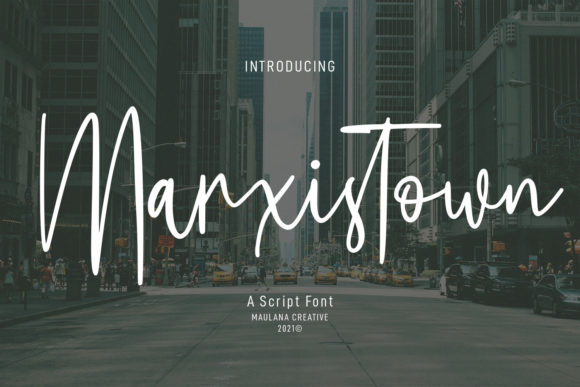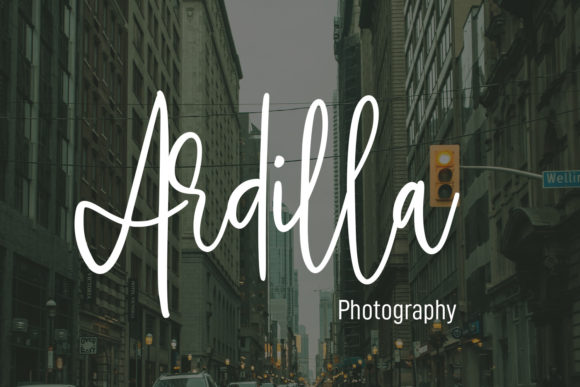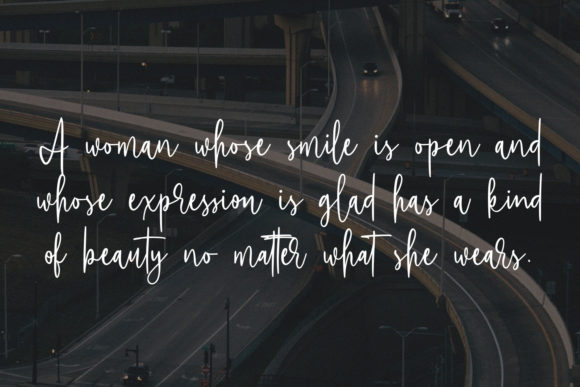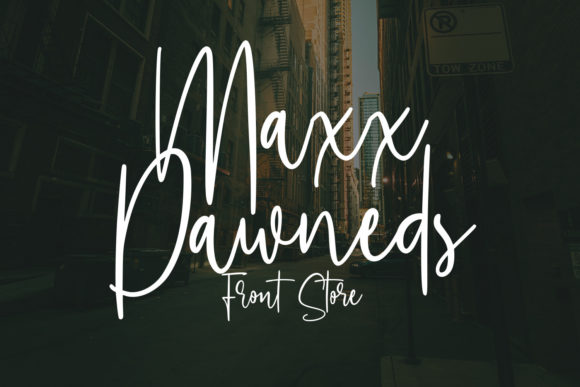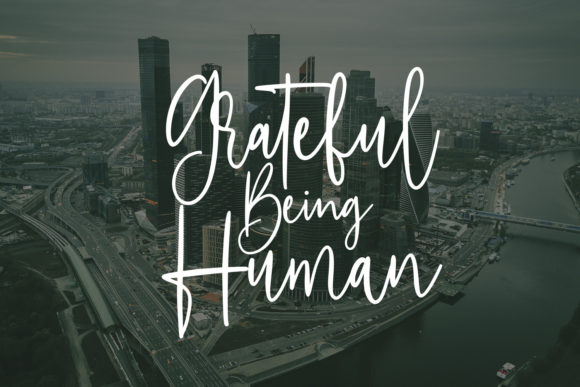
About Marxistown Script Font
Marxistown Script is a chic, flowing script font that emanates sophistication and elegance. Its stylish alternates and ligatures make this font the perfect match for any project.